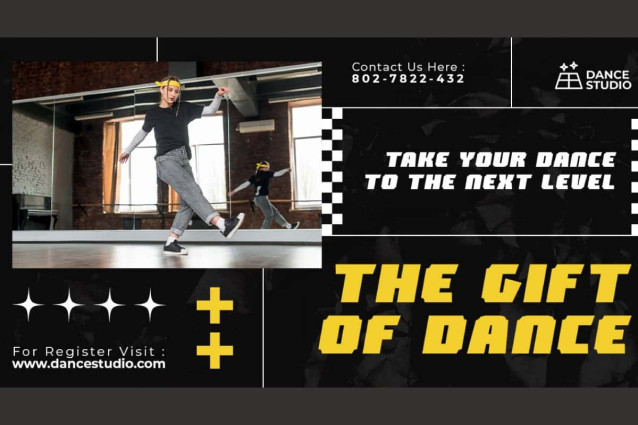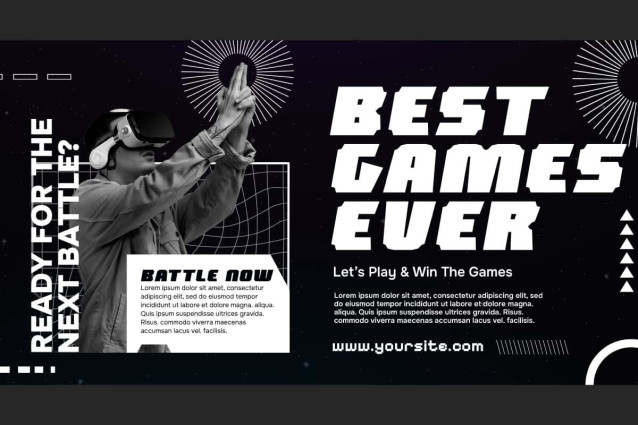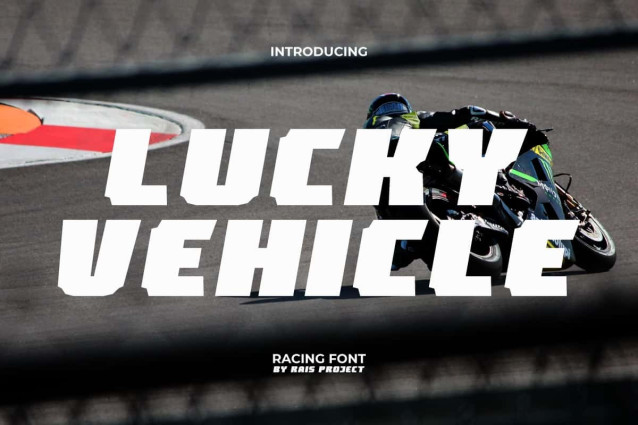
Lucky Vehicle Font
Lucky Vehicle Font is a bold and a dynamic racing display font, well made by RaisProject. This font has an attractive shape so it can add coolness to every design you make. It will be good for label, poster, invitation, signage, cover, menu, custom design, brand image, product packaging, quotes, stationery, web, and more!
Lucky Vehicle Font includes a full set of Uppercase and Lowercase Letters, Numerals, Punctuation and Symbol. This beautiful font will be suitable for various industries, such as game, automotive, sports, fashion, accessories, advertisement, event or festival, cafe, photography, printing, publishing, real estate, etc.